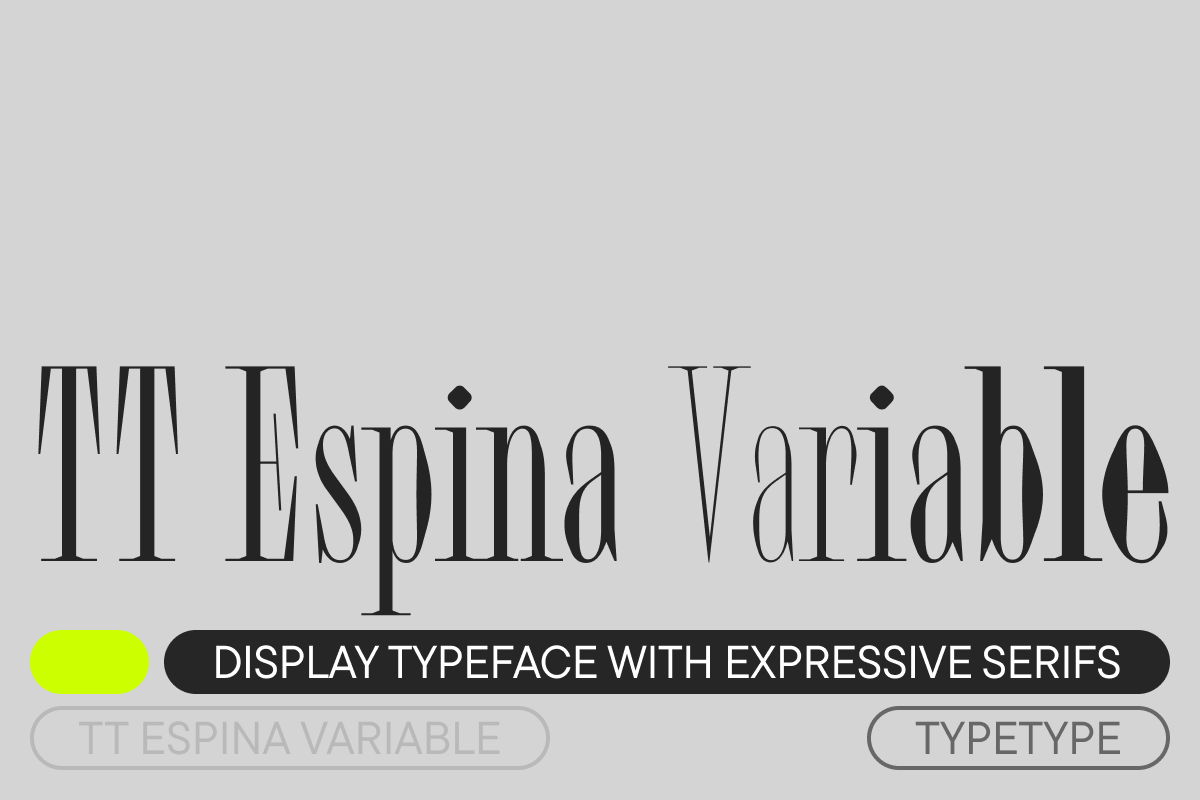
TT Espina Variable
TT Espina is a display Antiqua with expressive serifs. It is a modern typeface with high contrast between horizontal and vertical strokes. TT Espina is yet another proof that serifs can be stylish and expressive display fonts suitable for contemporary projects. This font is an excellent choice for poster headlines, billboards, gallery and exhibition designs, large-format printed materials, and websites.